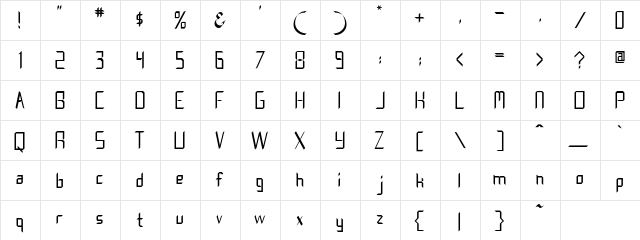
Creedmore Regular
Design Context for Creedmore Typeface
Creedmore is a composed and adaptable typeface that performs quietly and consistently across a wide range of design contexts.